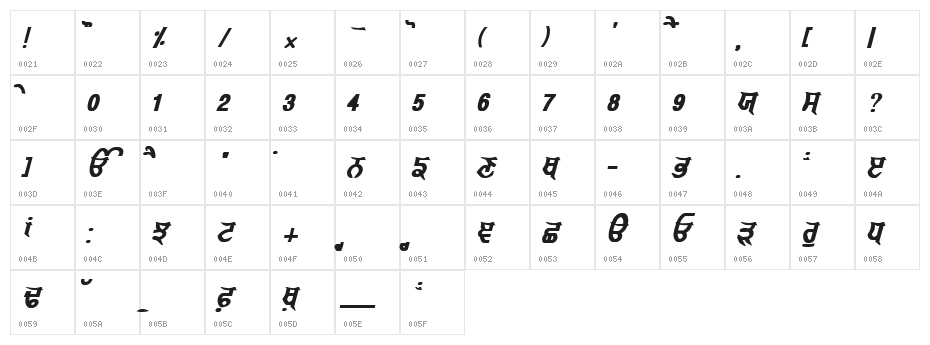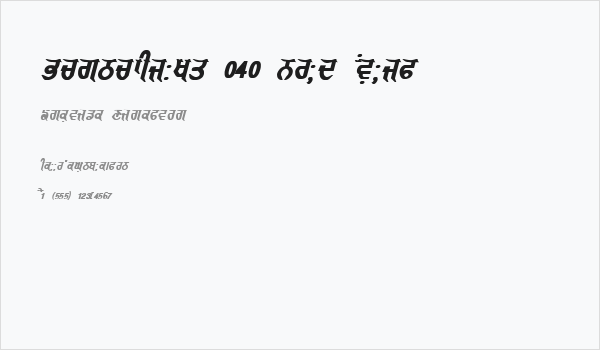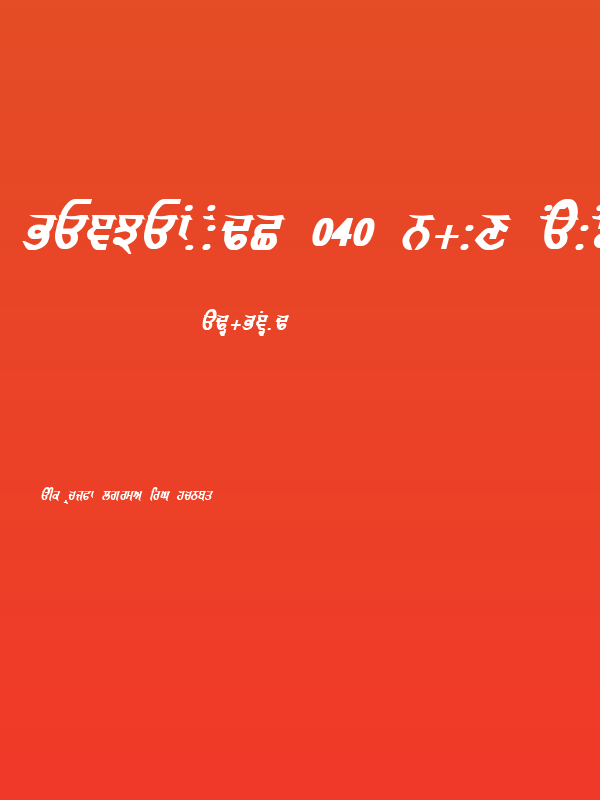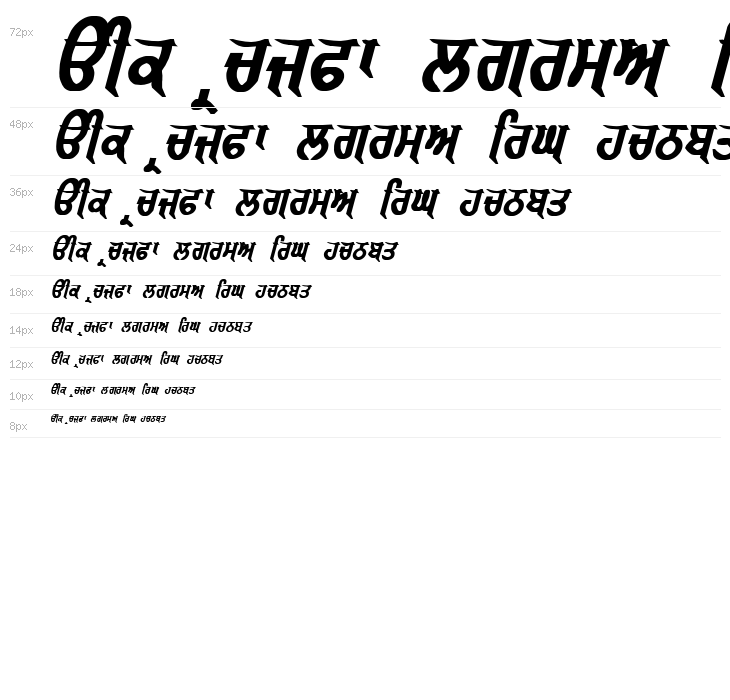
GurmukhiLys 040 Bold Italic Font
GurmukhiLys 040 Bold Italic Description
This font features a bold and italicized style with a distinct Gurmukhi script. The characters are robust and dynamic, showcasing a strong presence with their thick strokes and angular forms. The italic slant adds a sense of motion and fluidity, enhancing the overall aesthetic. The numerals are equally bold, maintaining consistency with the script's weight and style. Special characters are designed to complement the script, ensuring a cohesive look across all elements. The font's boldness and italic nature make it suitable for impactful and attention-grabbing designs.